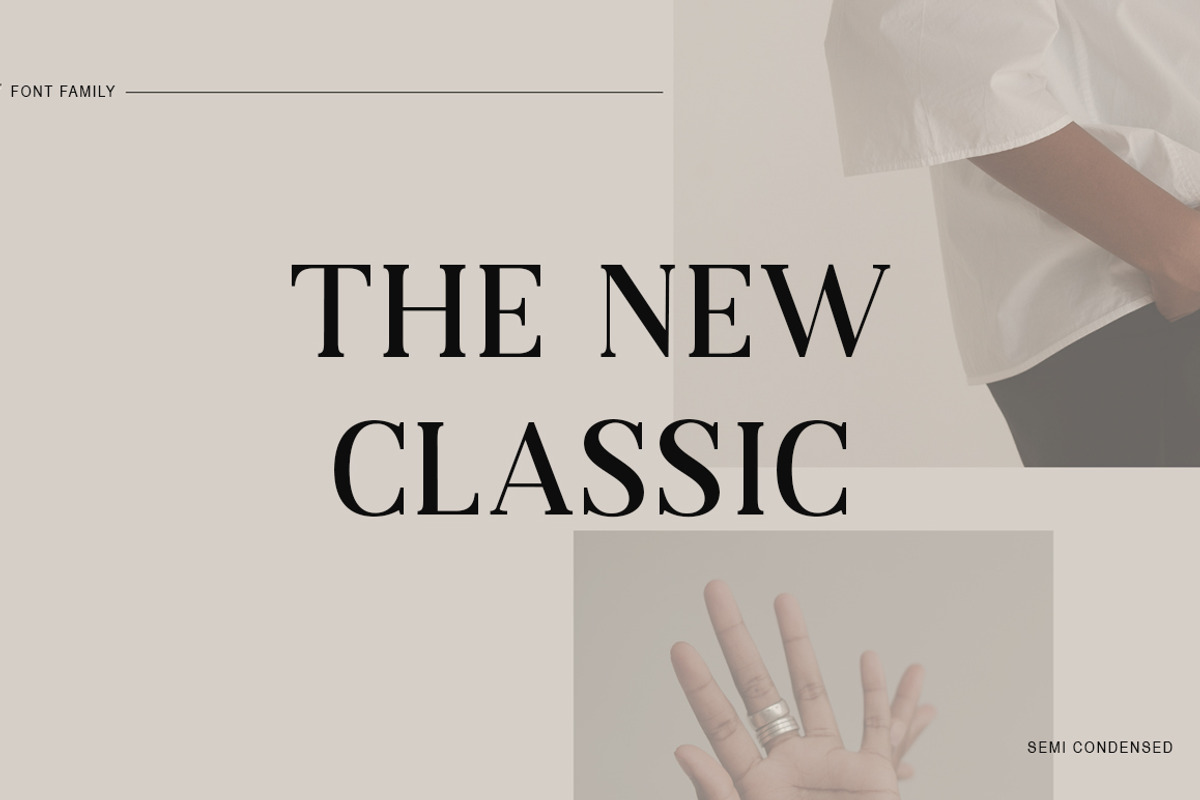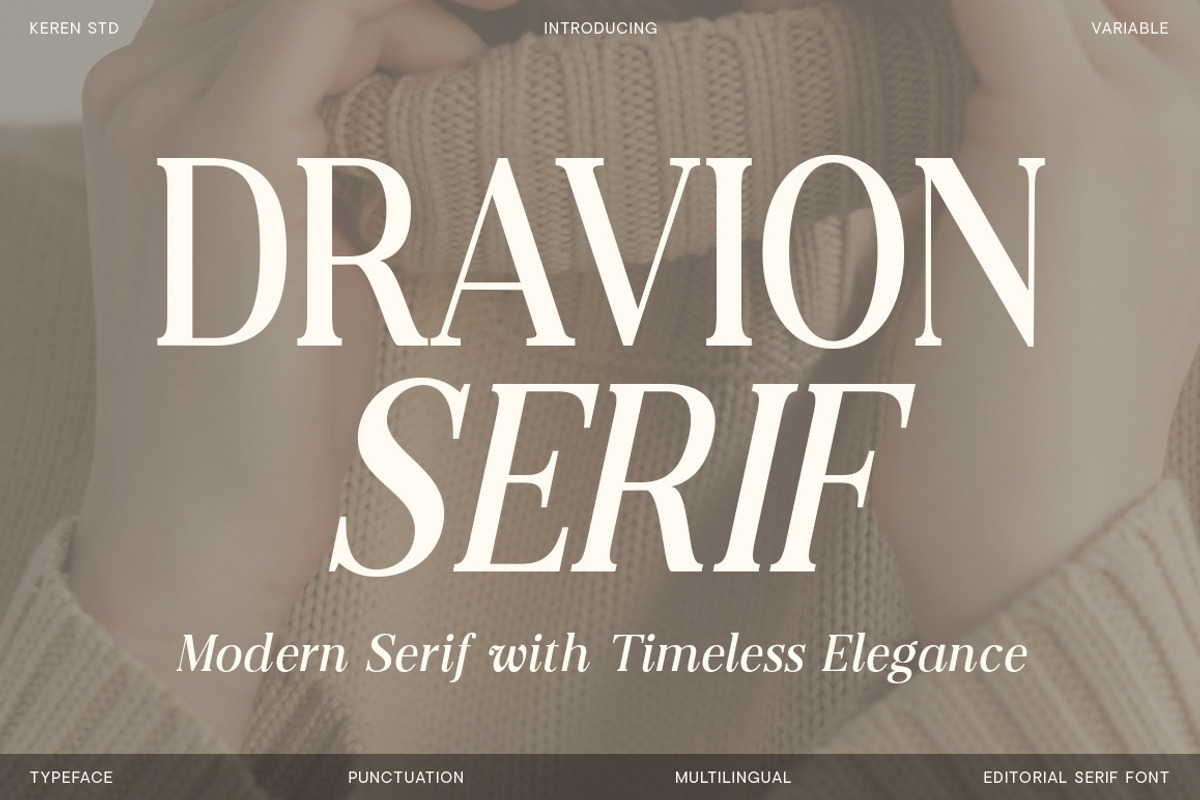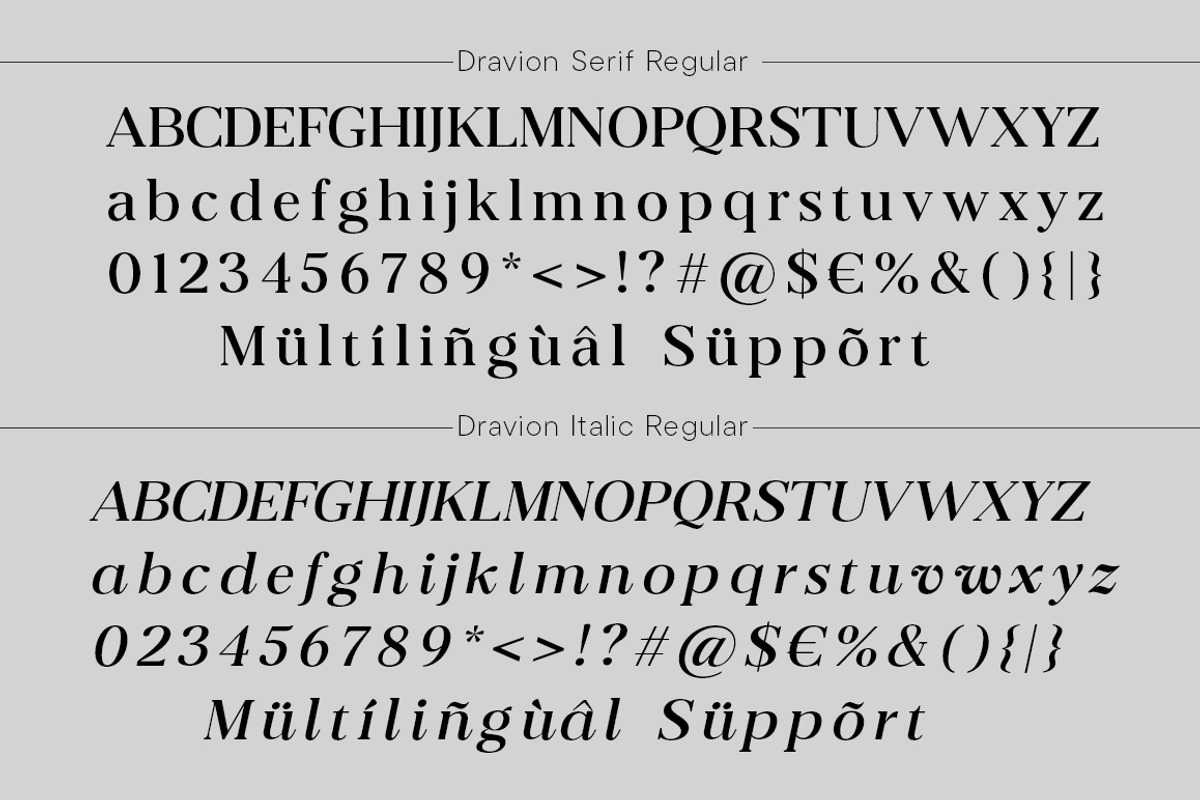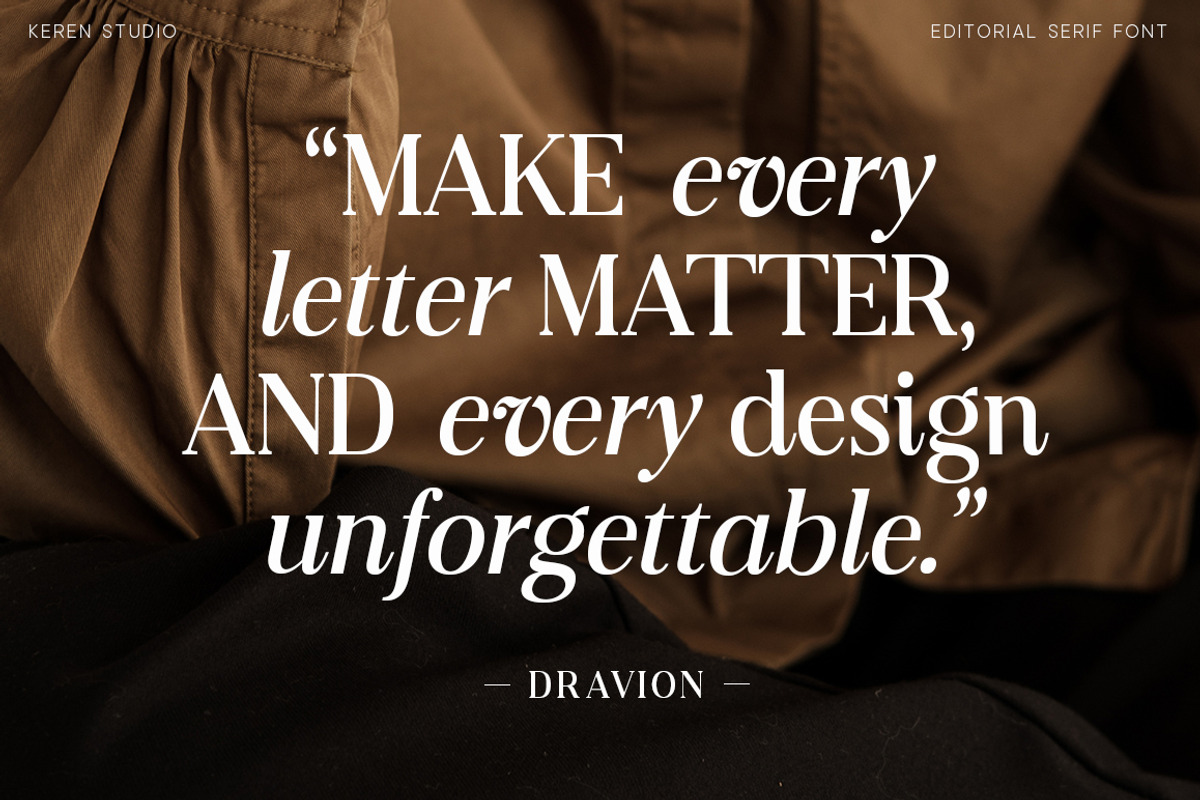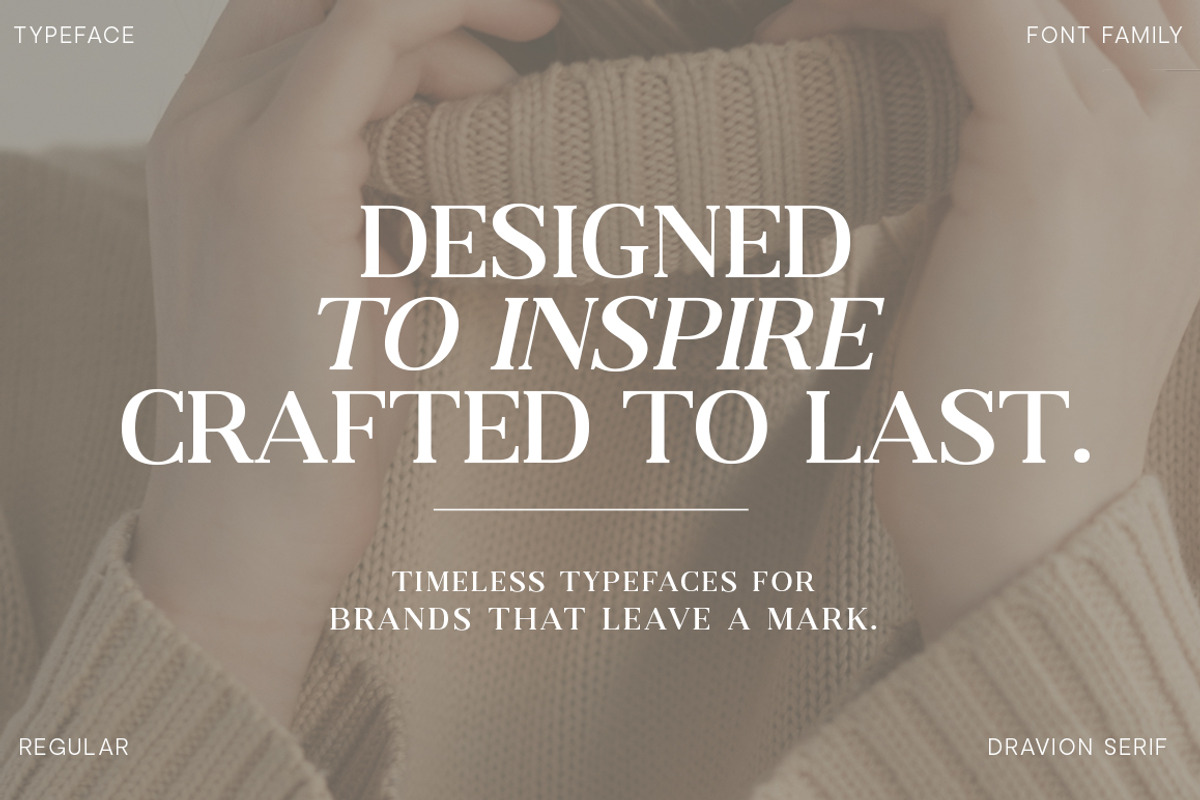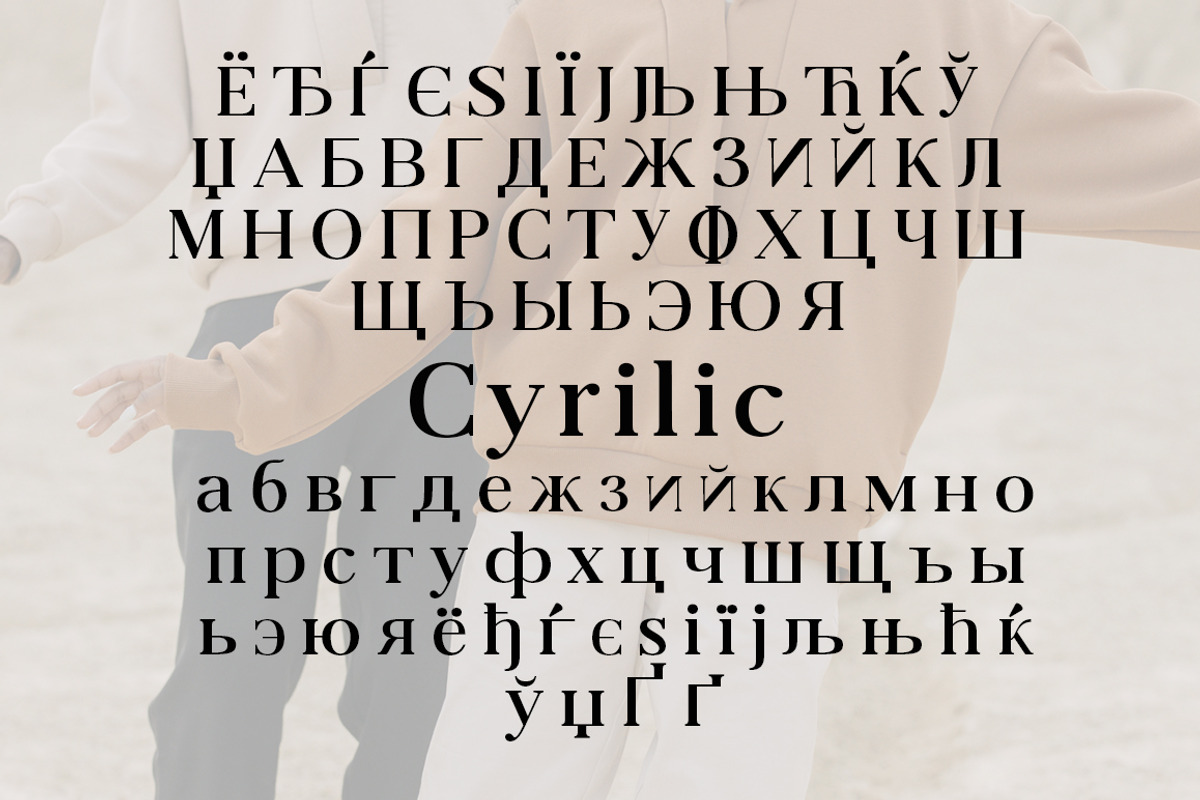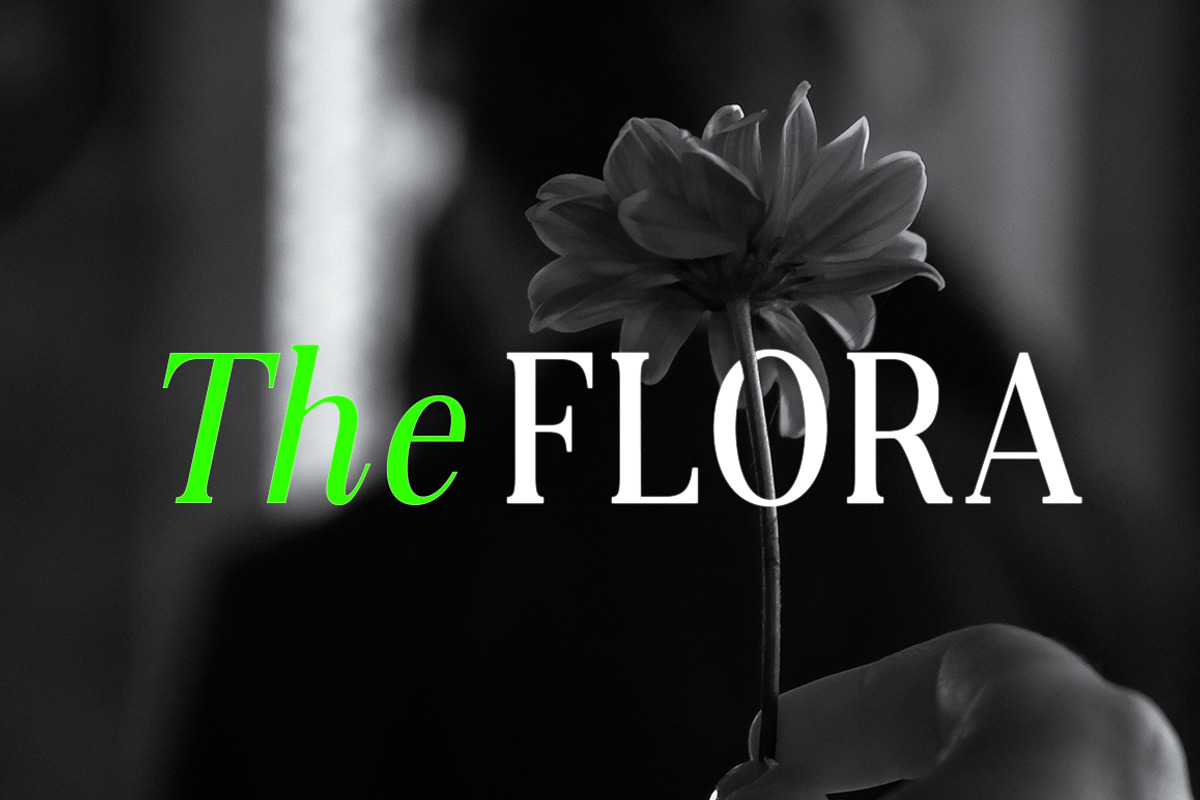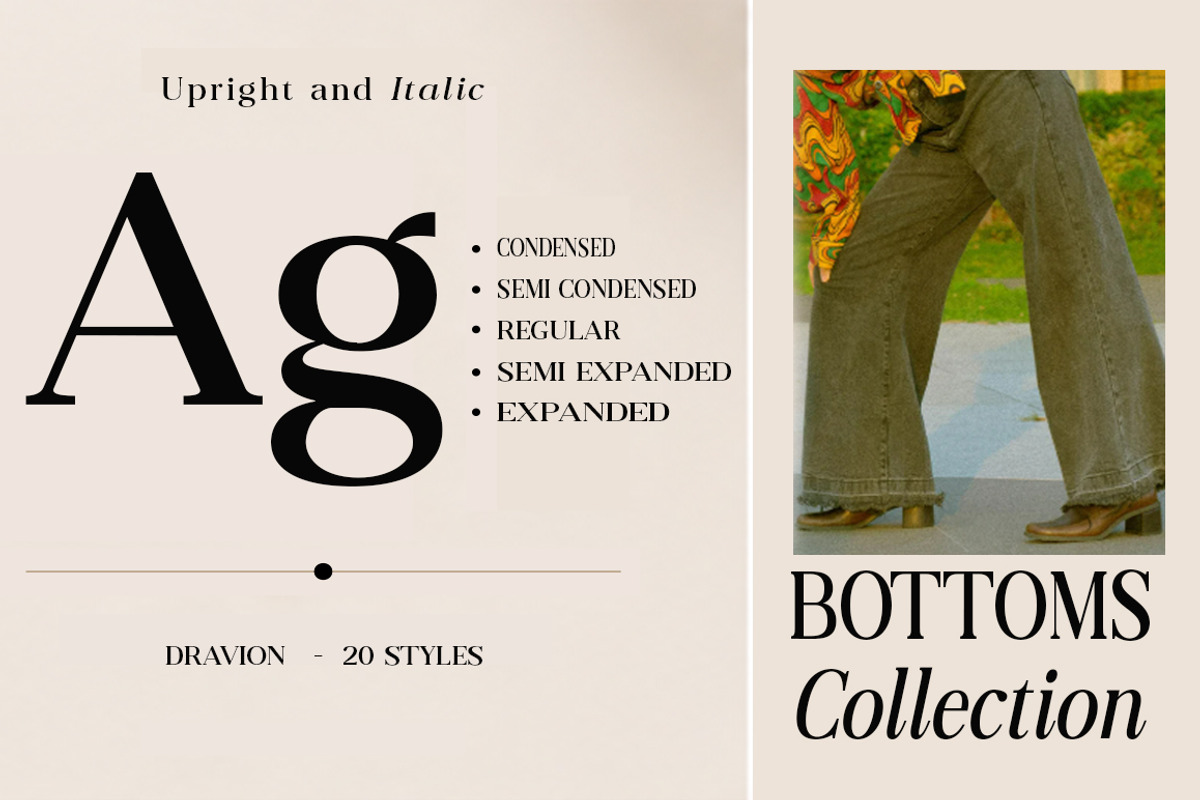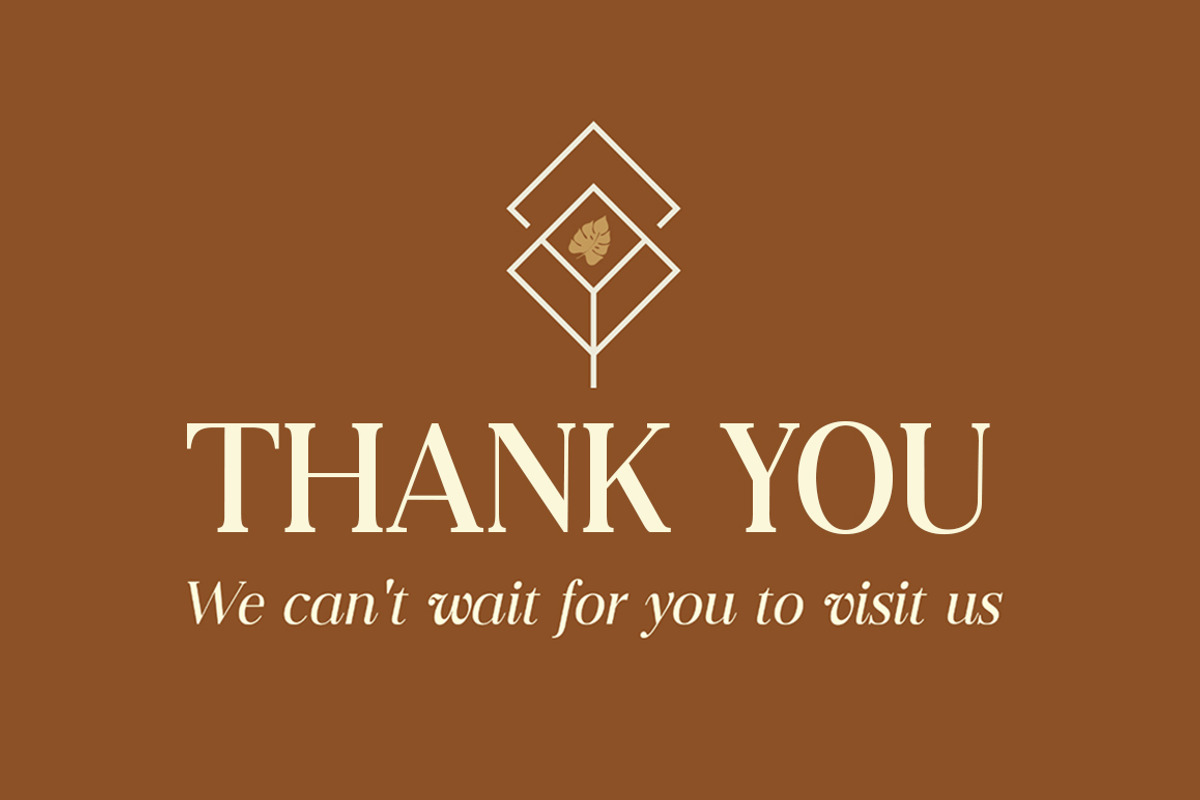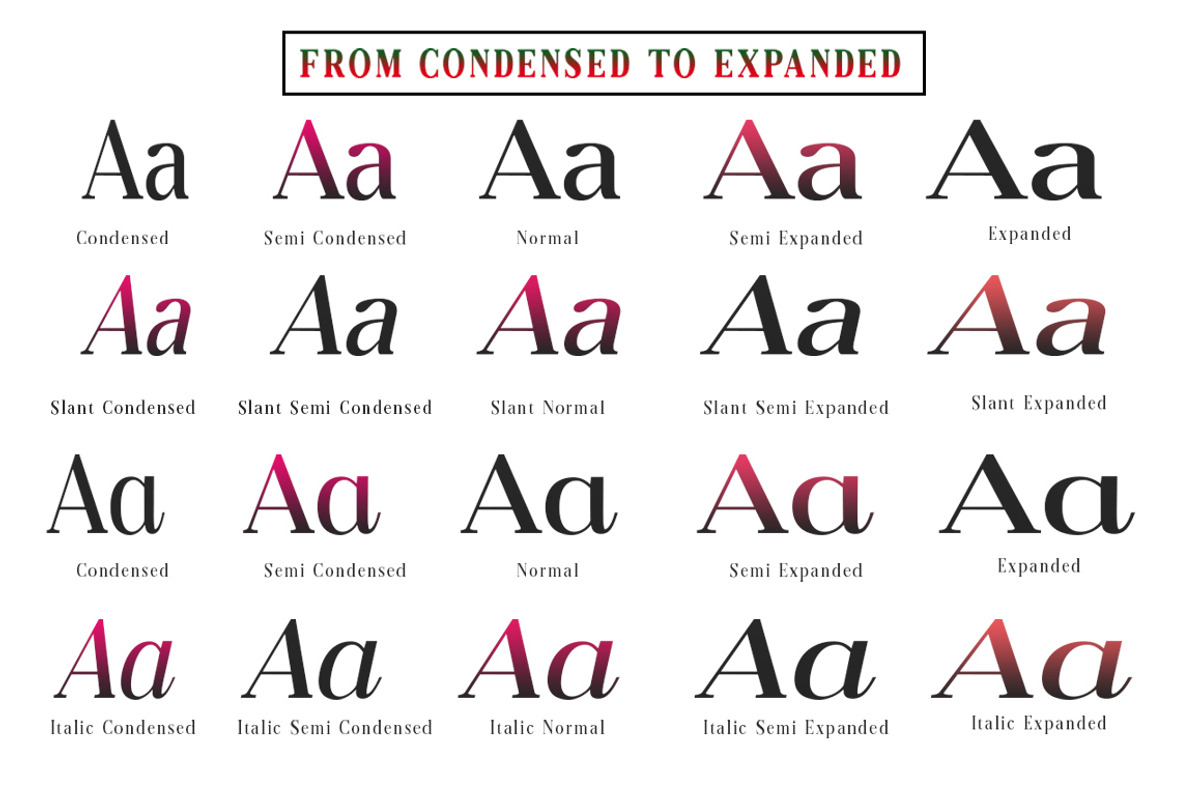
Dravion
Dravion is a sophisticated editorial serif family designed with a versatile range of widths and styles. Featuring 20 styles across Condensed, Semi Condensed, Normal, Semi Expanded, and Expanded proportions, with Slant and Italic variations, Dravion offers exceptional flexibility for modern typography.
Its elegant high-contrast forms and distinctive proportions make it ideal for luxury branding, fashion editorials, magazines, logos, packaging, invitations, headlines, posters, and premium visual identities. From narrow and refined compositions to wide and expressive layouts, Dravion brings a timeless editorial character to every design.